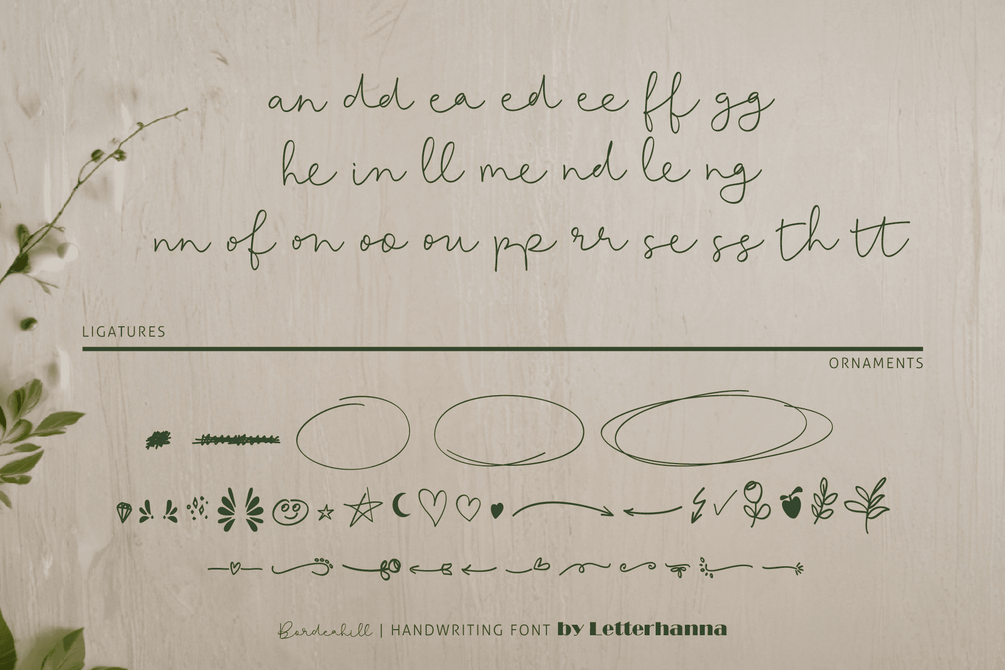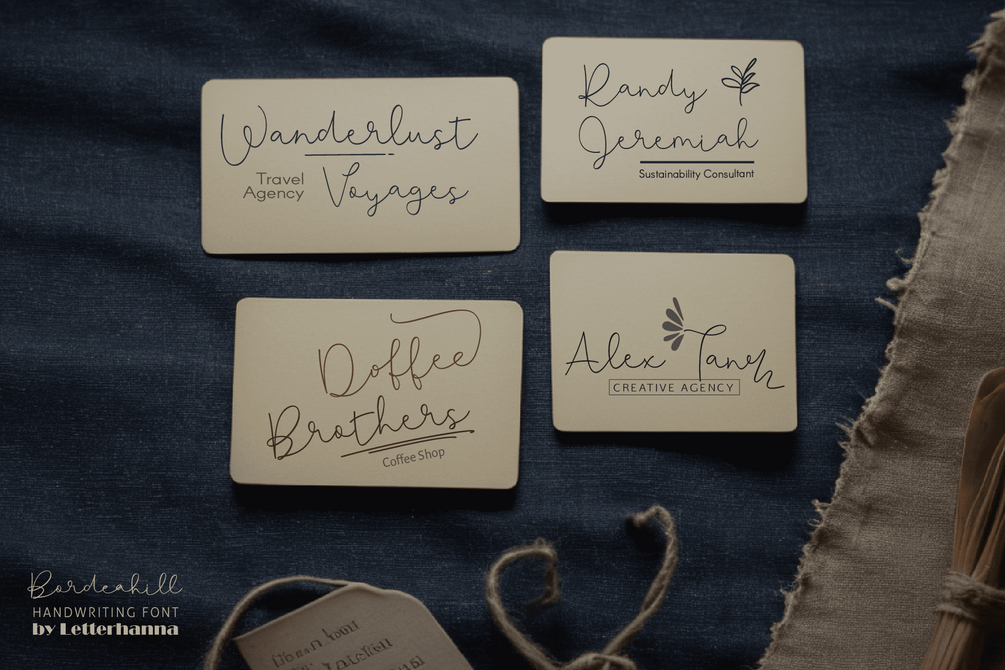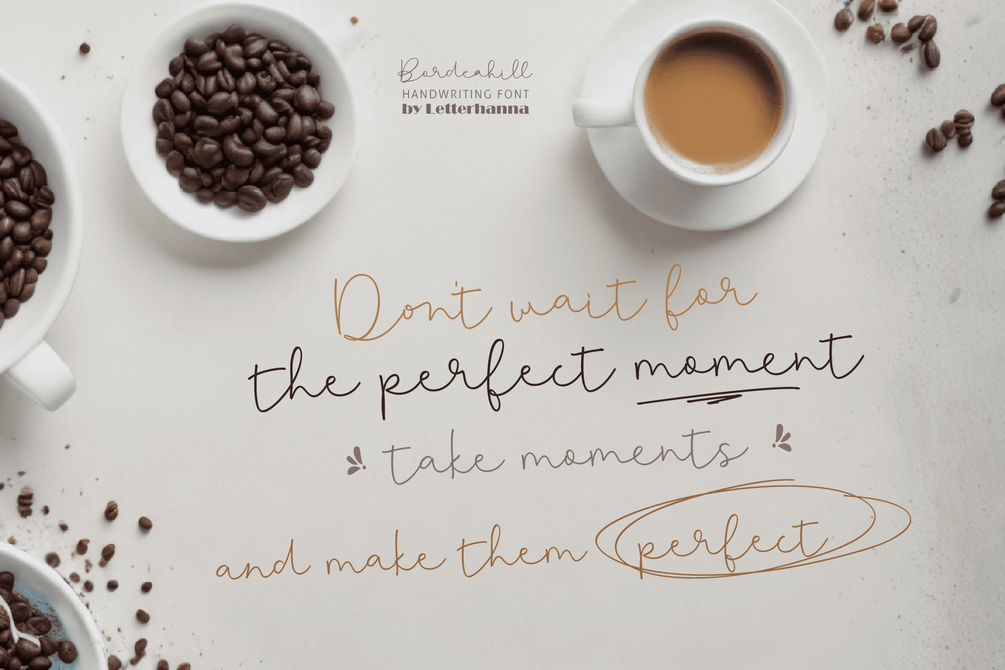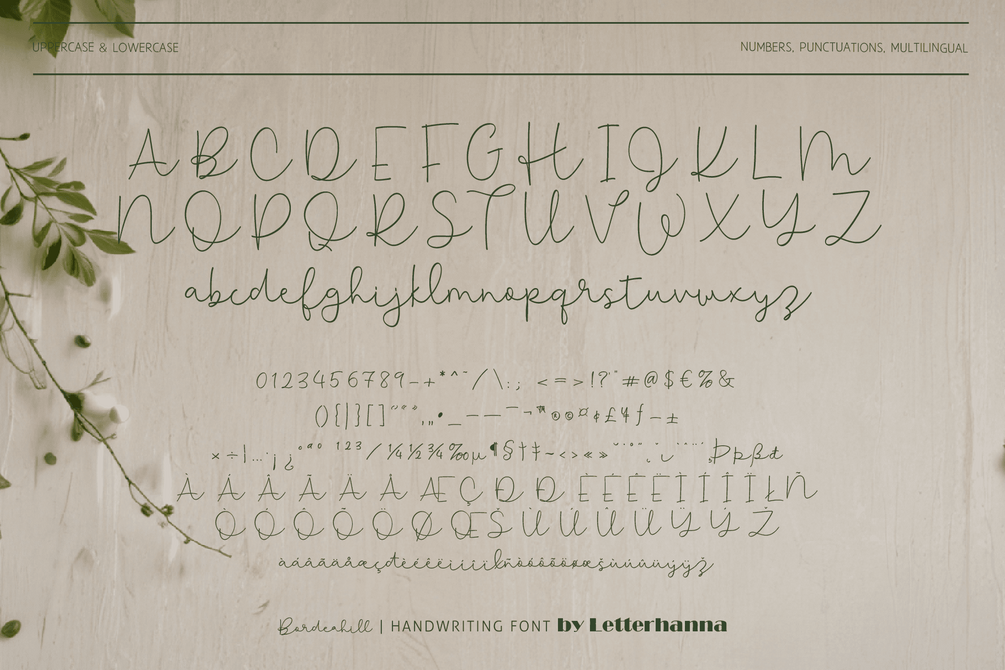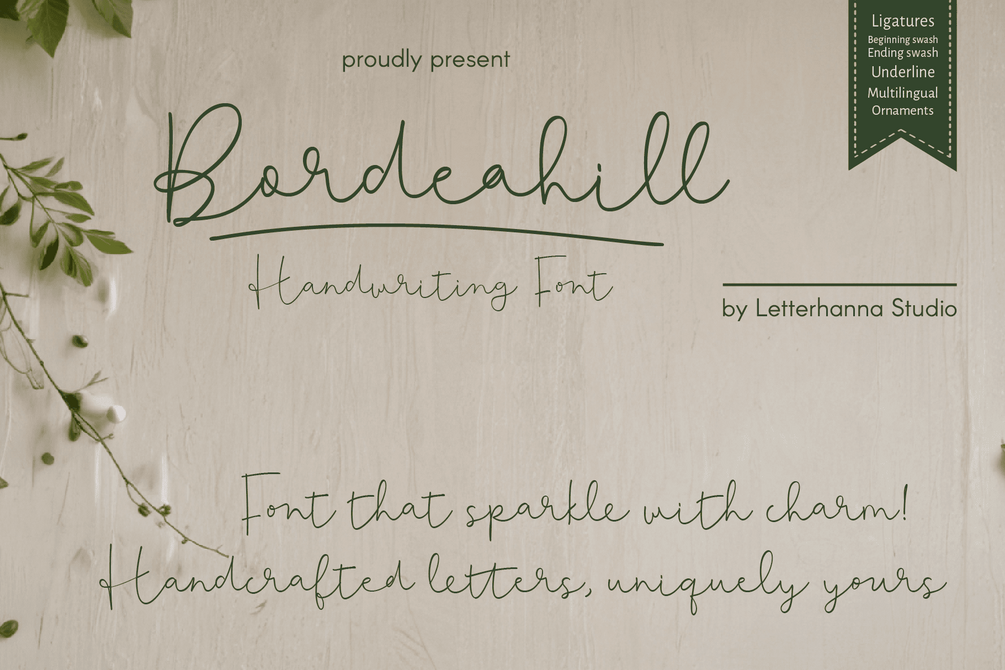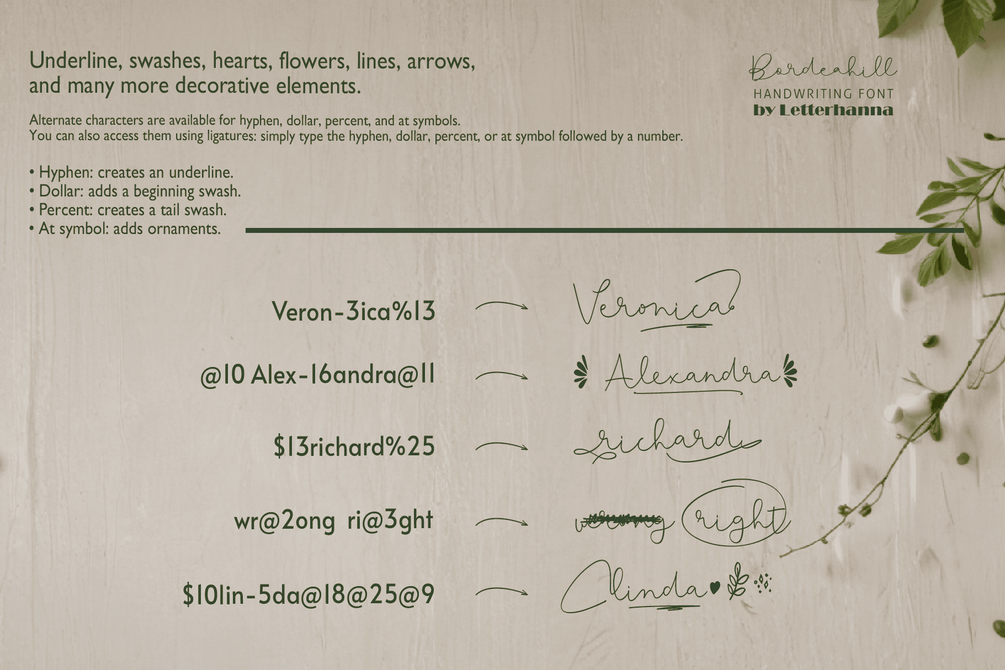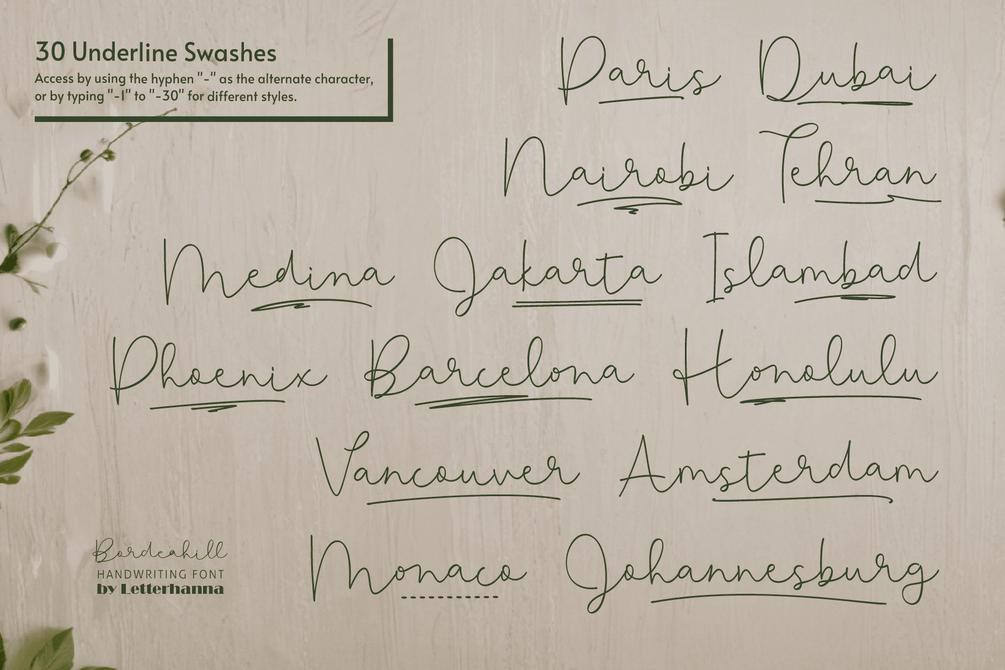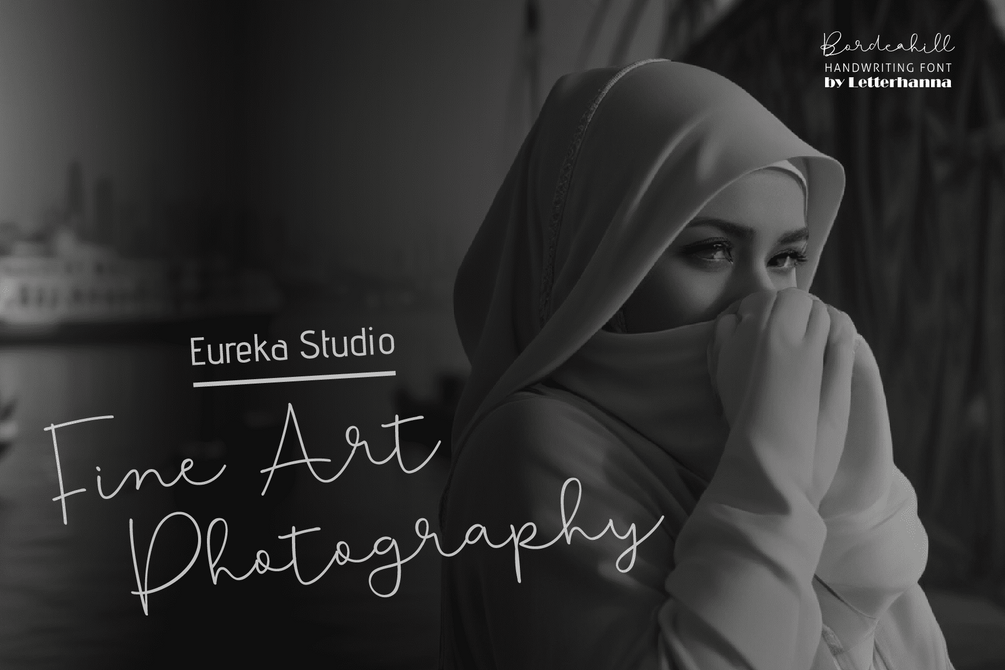
Bordeahill Free Font
Introducing Bordeahill, a charming new handwriting script font designed to elevate your creative projects with elegance and personality. With its smooth, flowing strokes and a touch of playful flair, Bordeahill captures the perfect balance between sophistication and warmth. Whether you're crafting invitations, logos, or social media posts, this font is here to help your words stand out in style.
Bordeahill offers versatile features, including stylish swashes and alternate characters, giving you endless possibilities to customize your designs. Its timeless appeal and modern touch make it a must-have for anyone looking to add a personal, artistic feel to their work. Make your creations unforgettable with Bordeahill—the script font that brings your ideas to life!
• Uppercase and lowercase letters
• Numbers and punctuation marks
• Multilingual support
• Ligatures
• Beginning and ending swashes
• Underline swashes
• Ornaments
• Easy access to swashes using ligatures